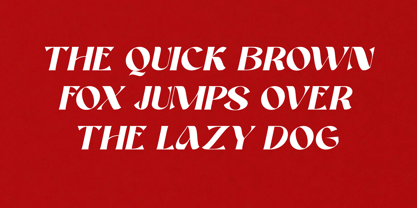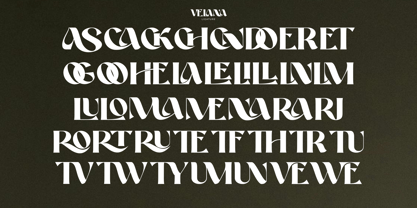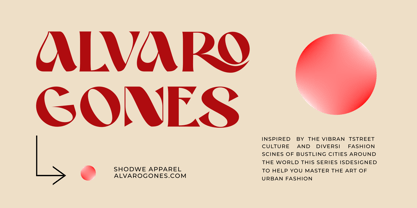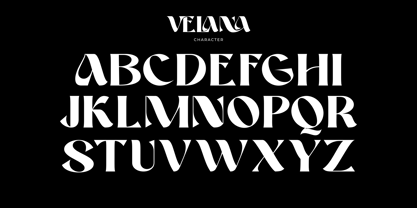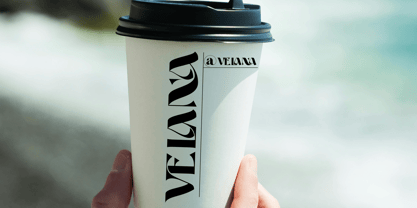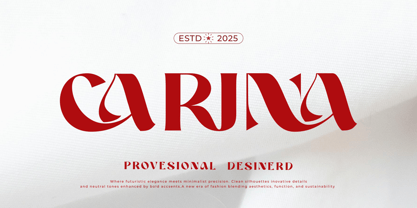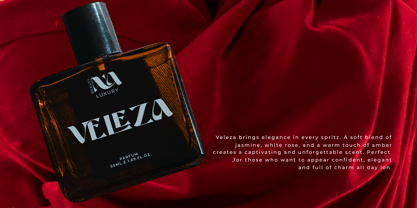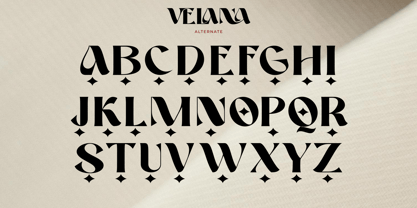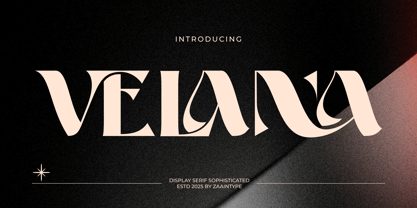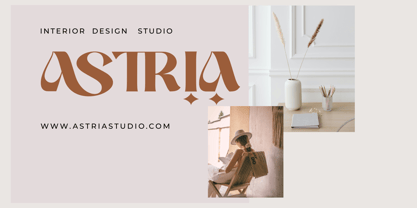
Velana
by Zaain Type
The Velana Font Family was designed by Ju Naen and published by Zaain Type. Velana contains 2 styles and family package options.
VELANA is an elegant serif font with unique details that blend modern style with classic charm. Perfect for branding, editorials, and luxury designs. Available in Regular and Oblique styles for maximum versatility in all your creations